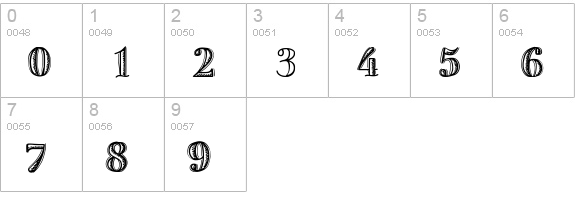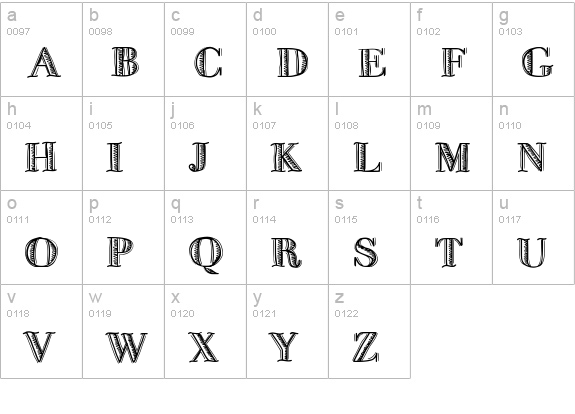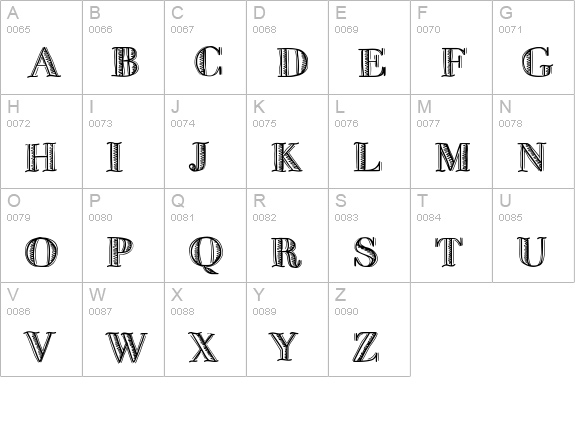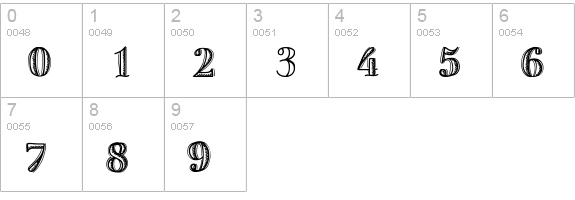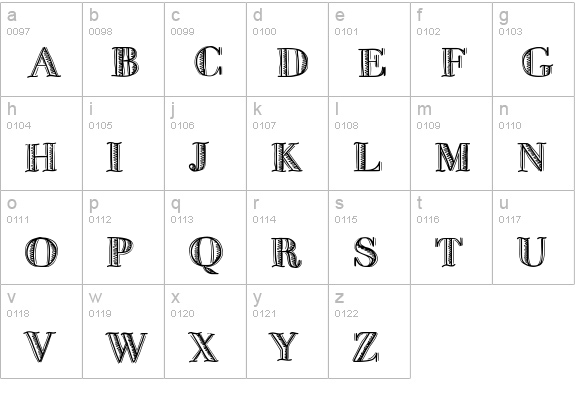
FiveDollar Font Details
Introducing FiveDollar font, a versatile and modern typeface that is sure to catch the eye and enhance any design project. With its sleek lines and contemporary feel, FiveDollar font is the perfect choice for anyone looking to make a bold statement. What sets FiveDollar font apart from other fonts is not just its stunning design, but also its accessibility. This incredible font is available for free download at FontsMarket.com, making it a valuable asset for designers, creatives, and anyone in need of a high-quality font without breaking the bank. Whether you're working on a logo, website, poster, or any other creative endeavor, FiveDollar font will bring a touch of elegance and professionalism to your project. Its clean and crisp letterforms make it highly readable, while its subtle curves and unique details add a touch of sophistication. The versatility of FiveDollar font knows no bounds. With a wide range of weights and styles available, you can easily adapt this font to suit any design need. From bold headlines to elegant body text, FiveDollar font can effortlessly elevate your typography game. But the best part? FiveDollar font is not just visually stunning and versatile—it's also free! That's right, this incredible font can be freely downloaded at FontsMarket.com, allowing you to enhance your designs without spending a dime. So why wait? Take advantage of this amazing opportunity and download FiveDollar font today. With its exceptional design, accessibility, and cost-free availability, FiveDollar font is a must-have for any designer or creative looking to make a lasting impression.